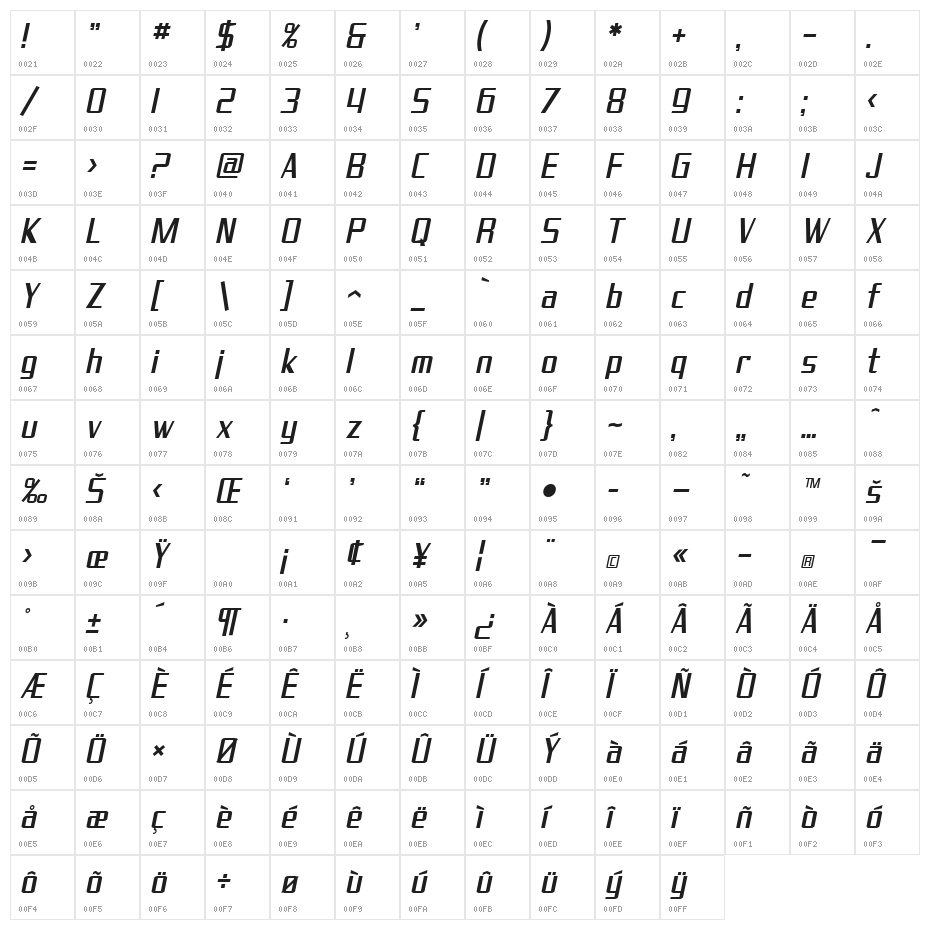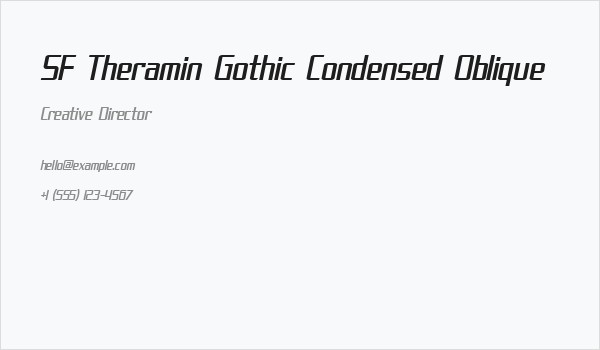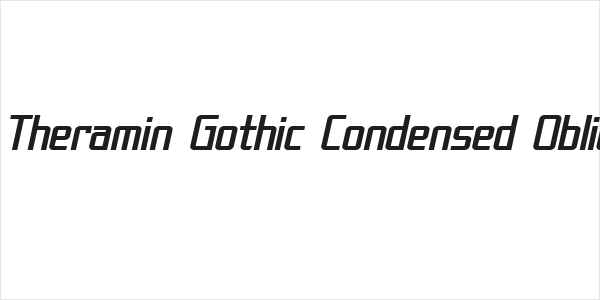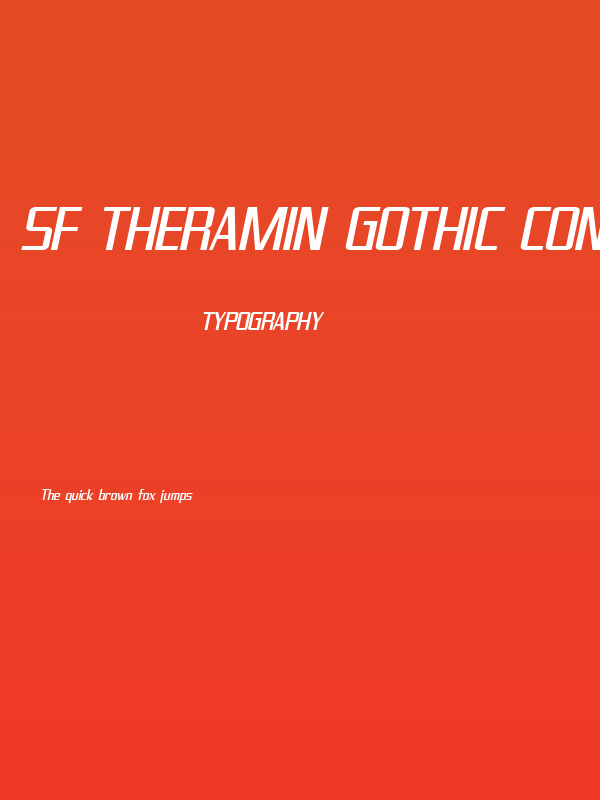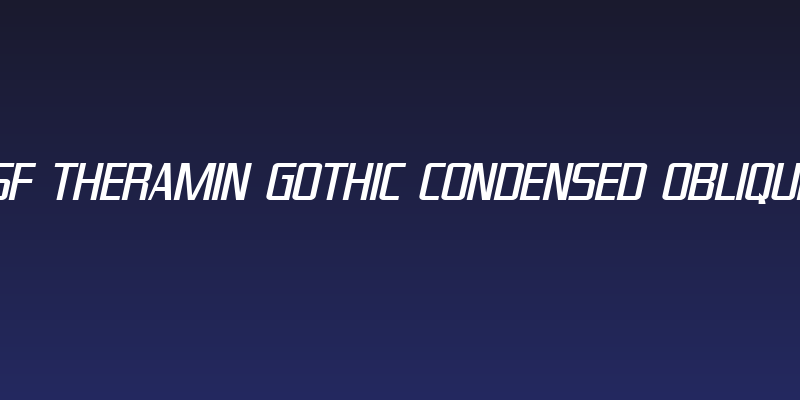
SF Theramin Gothic Condensed Oblique Font
SF Theramin Gothic Condensed Oblique Description
This font exhibits a sleek, modern design with a condensed and oblique style, giving it a dynamic and forward-leaning appearance. The characters are sharply defined with clean lines and a geometric structure, creating a sense of precision and efficiency. The uppercase and lowercase letters maintain a consistent height, contributing to a uniform look across text. Numbers and special characters are designed with the same attention to detail, ensuring readability and aesthetic appeal. The overall design is minimalistic yet impactful, making it suitable for various applications where a contemporary and professional look is desired.
| Use Case | Headlines, Logos, Digital interfaces |
| Proposed Projects | Ideal for tech branding, modern advertising, digital interfaces, and futuristic designs. |